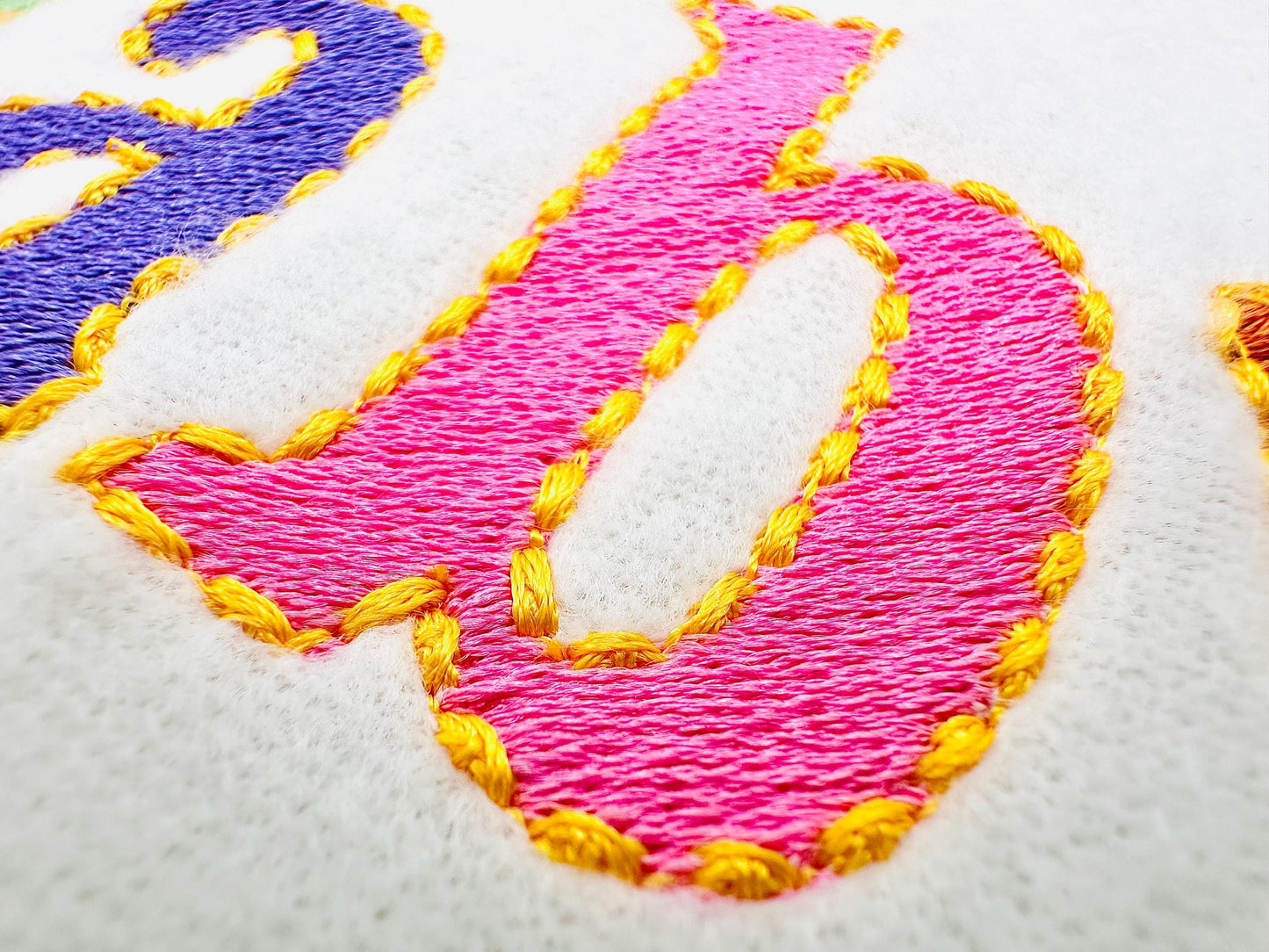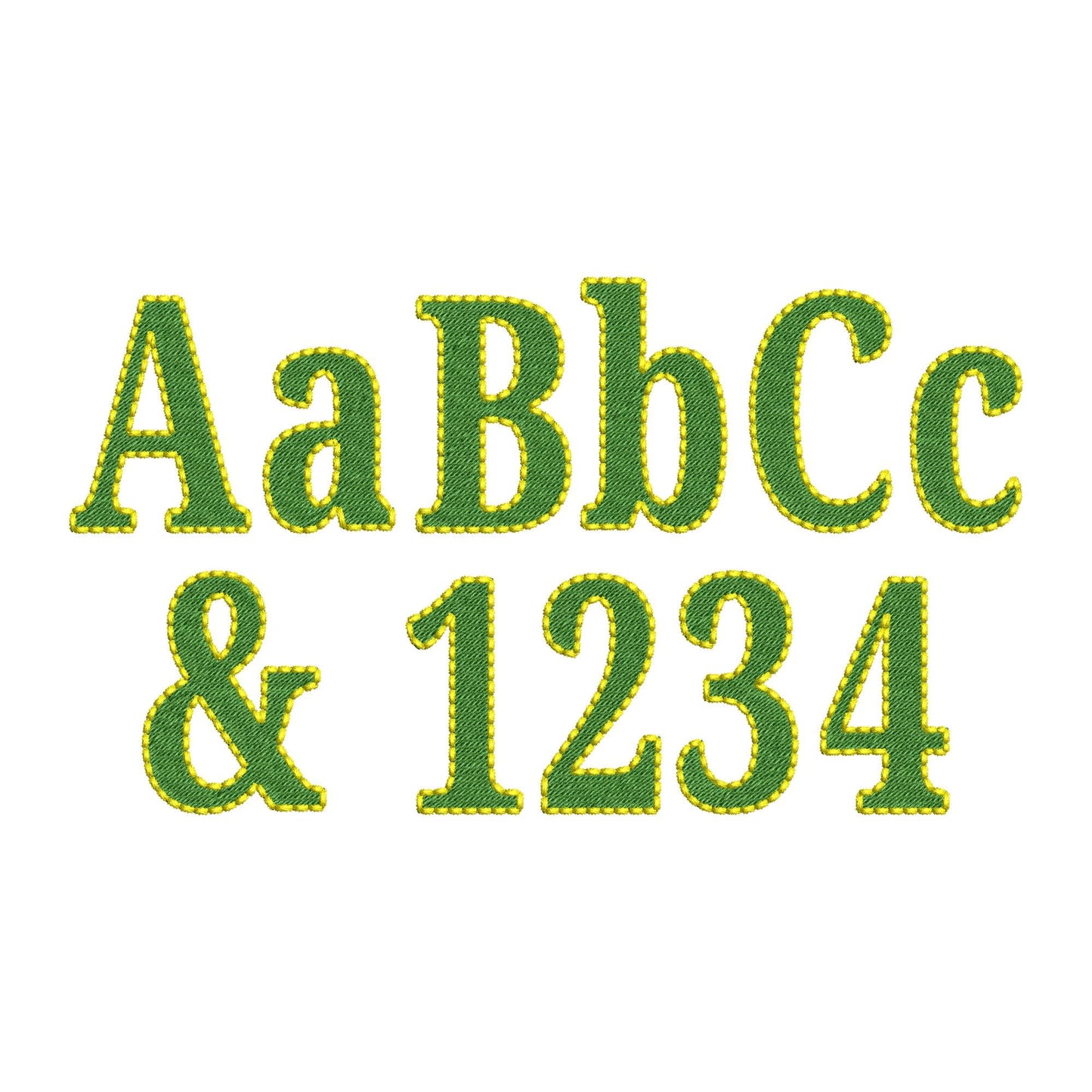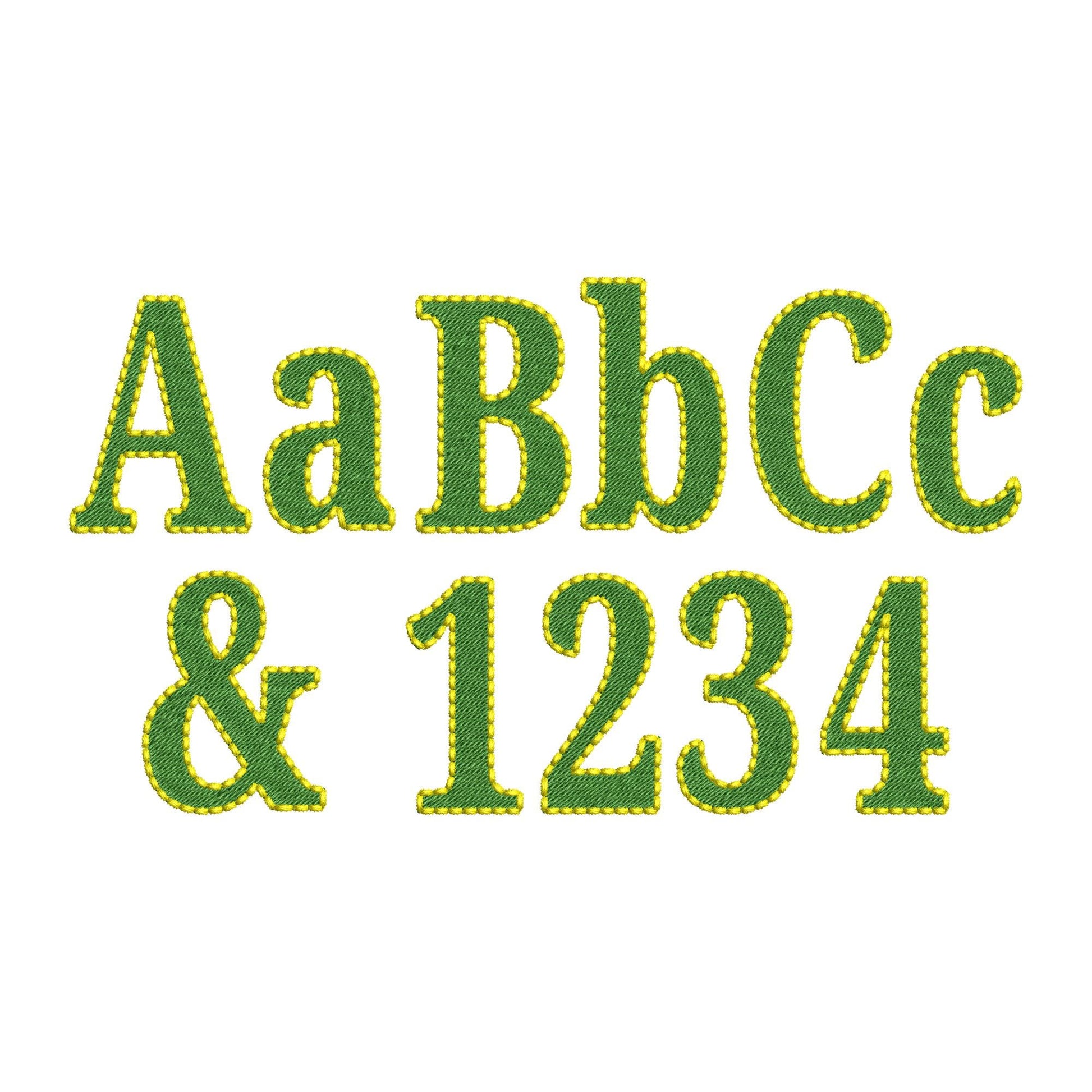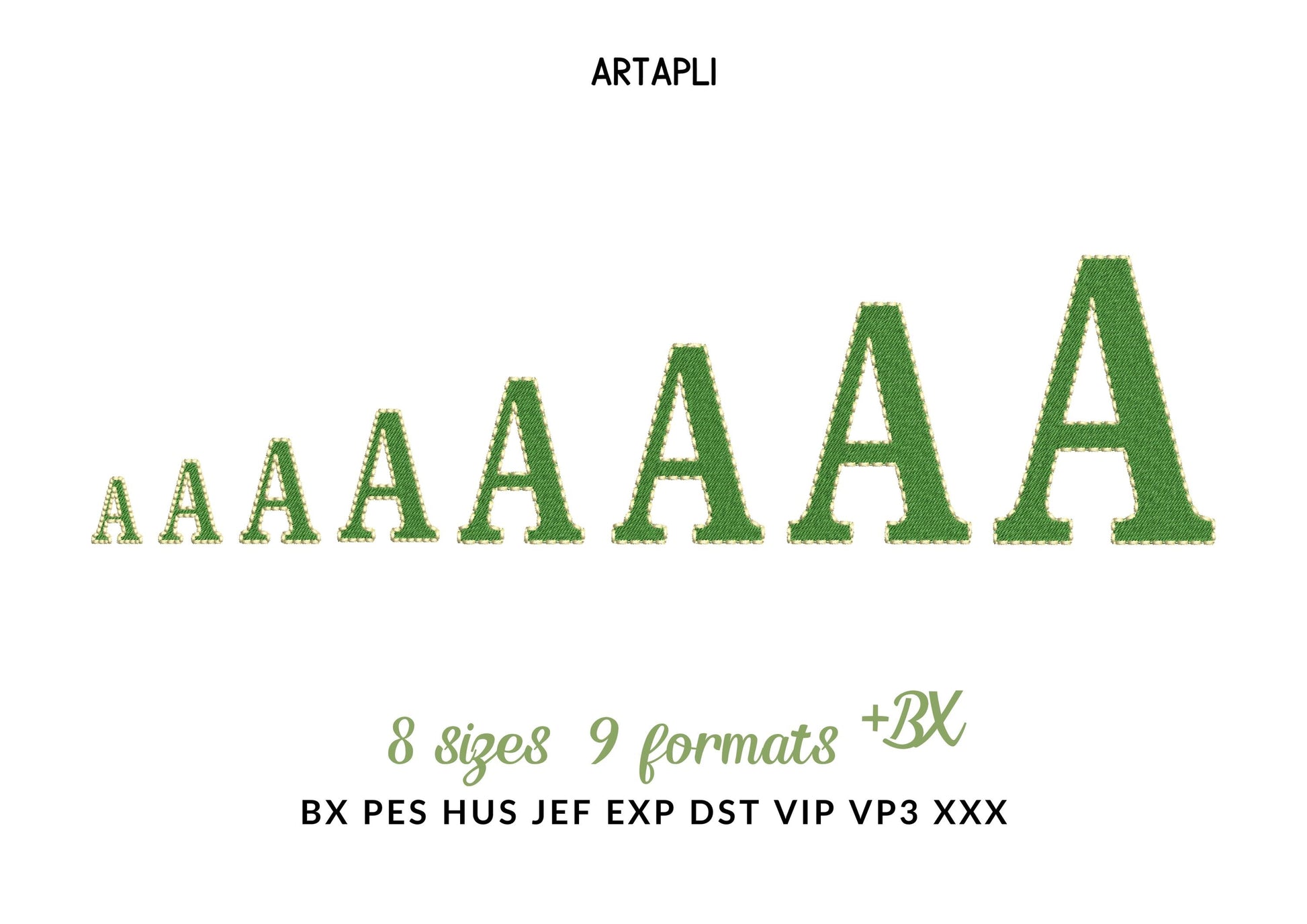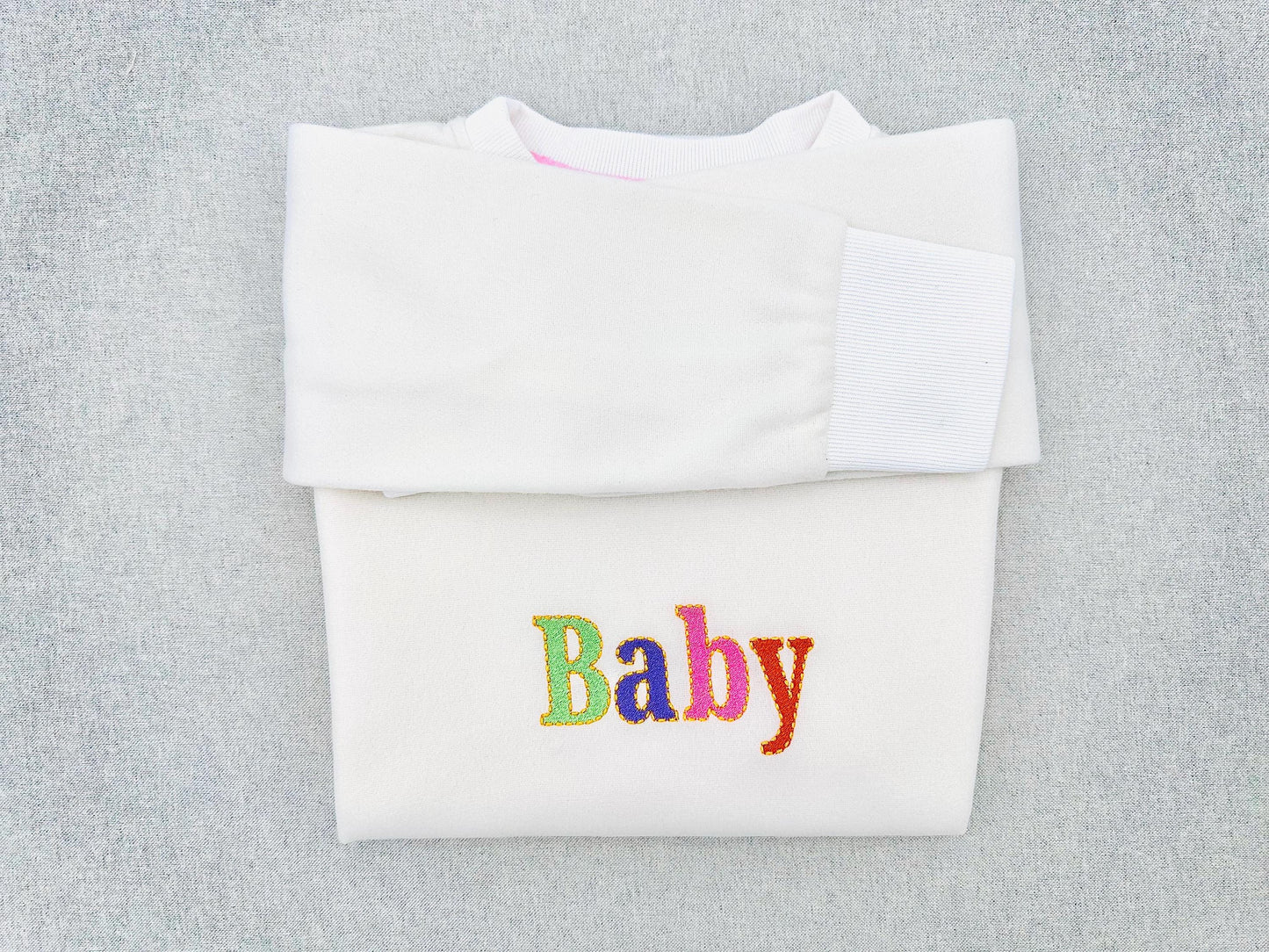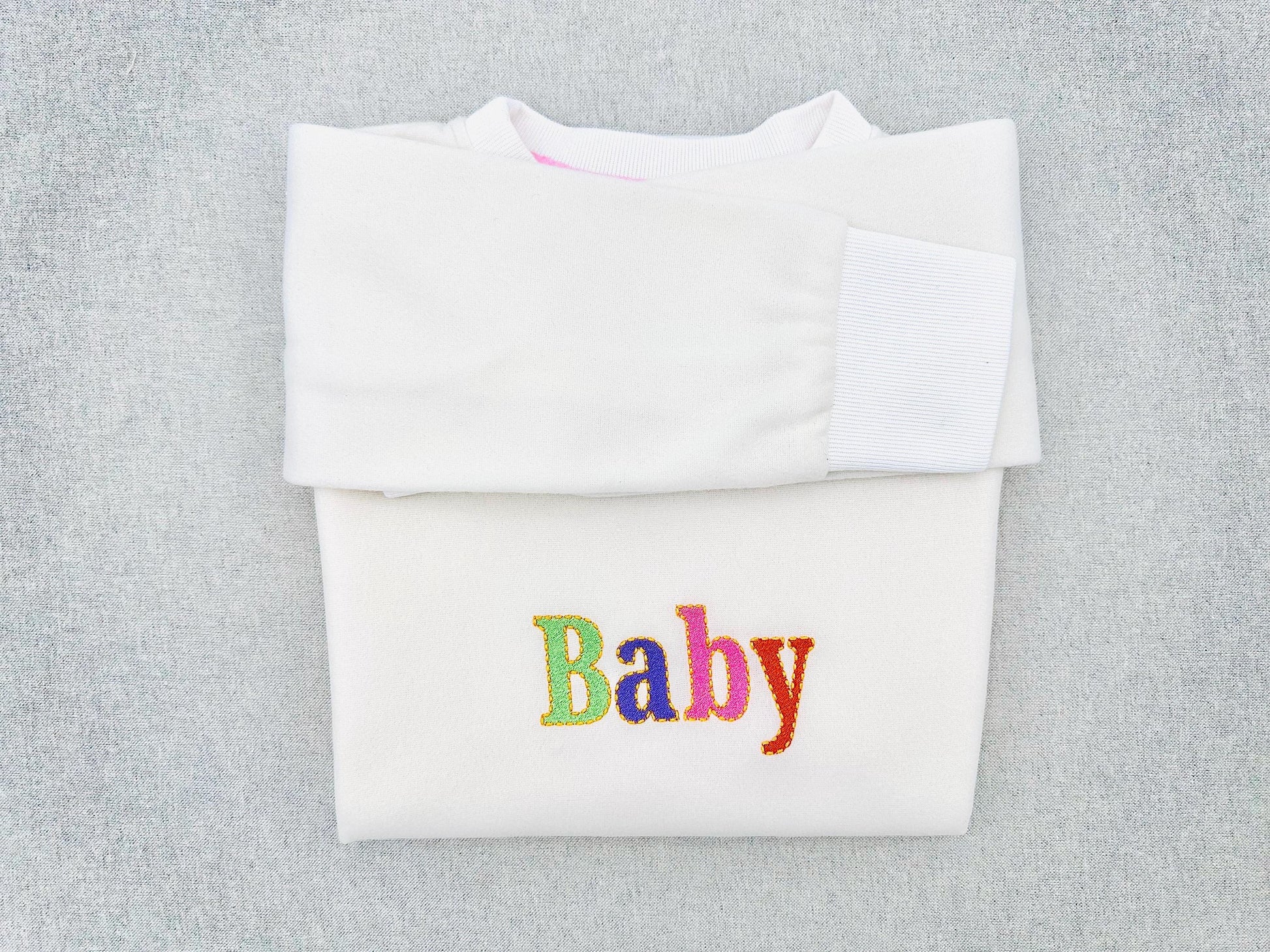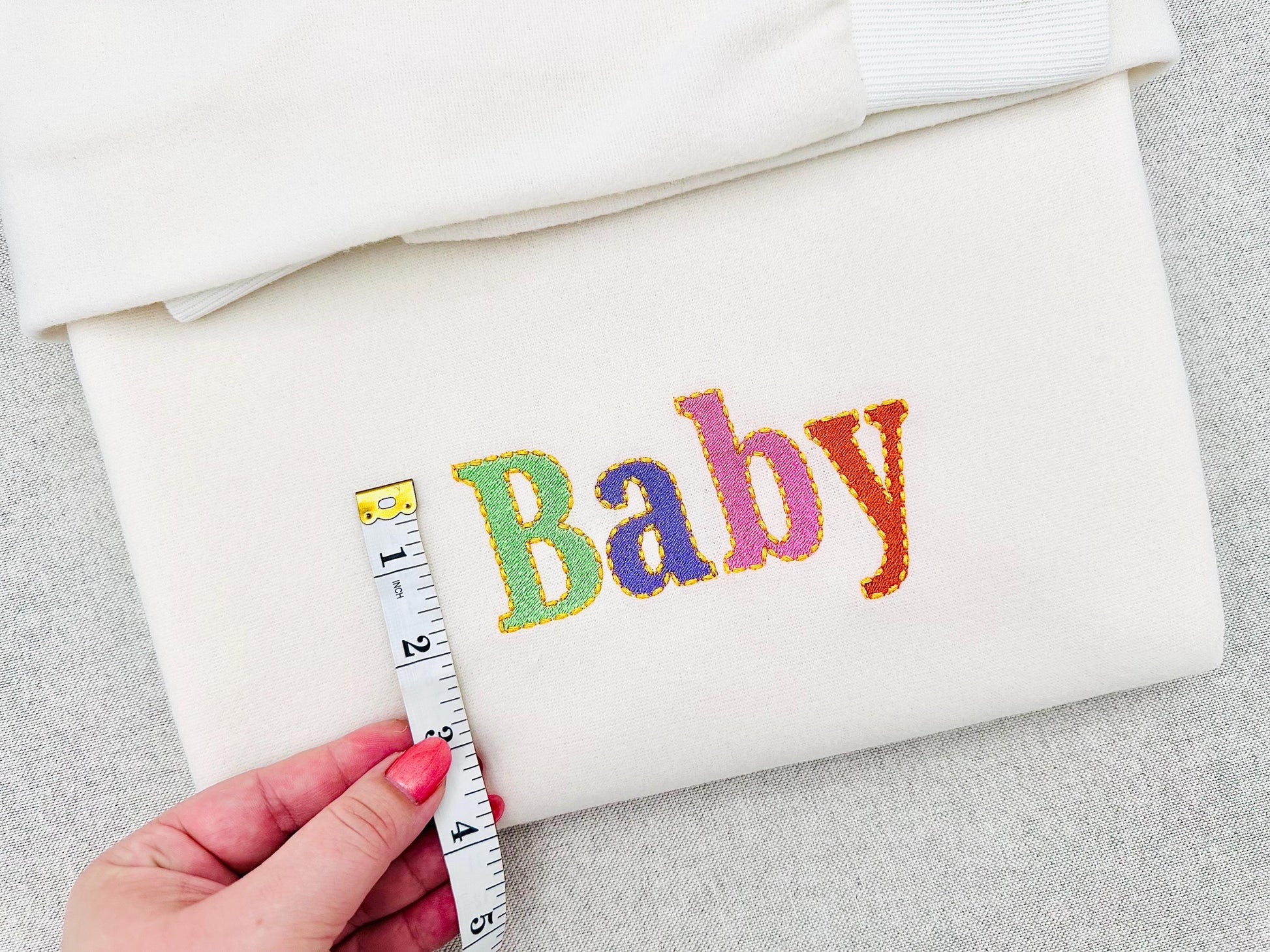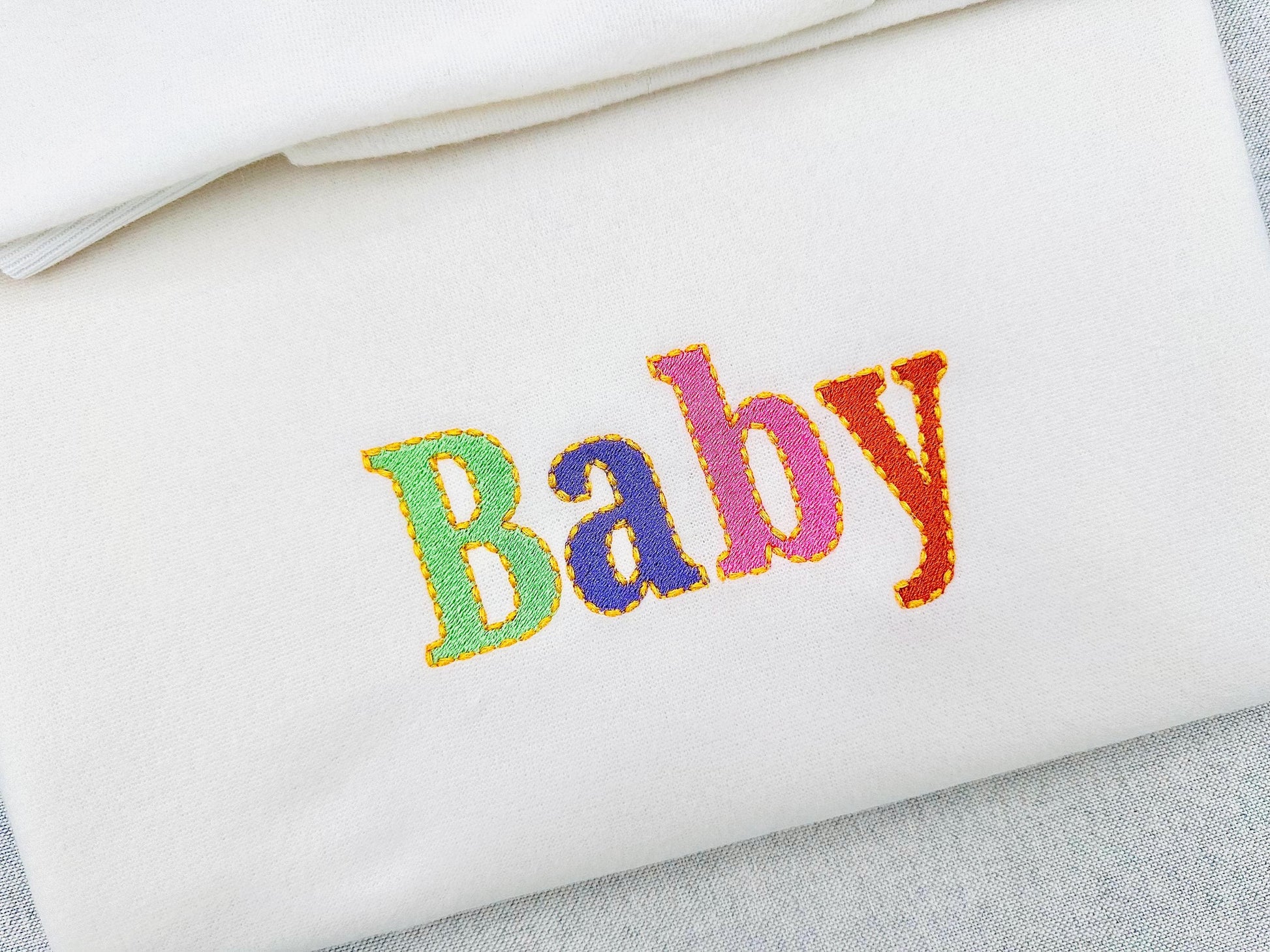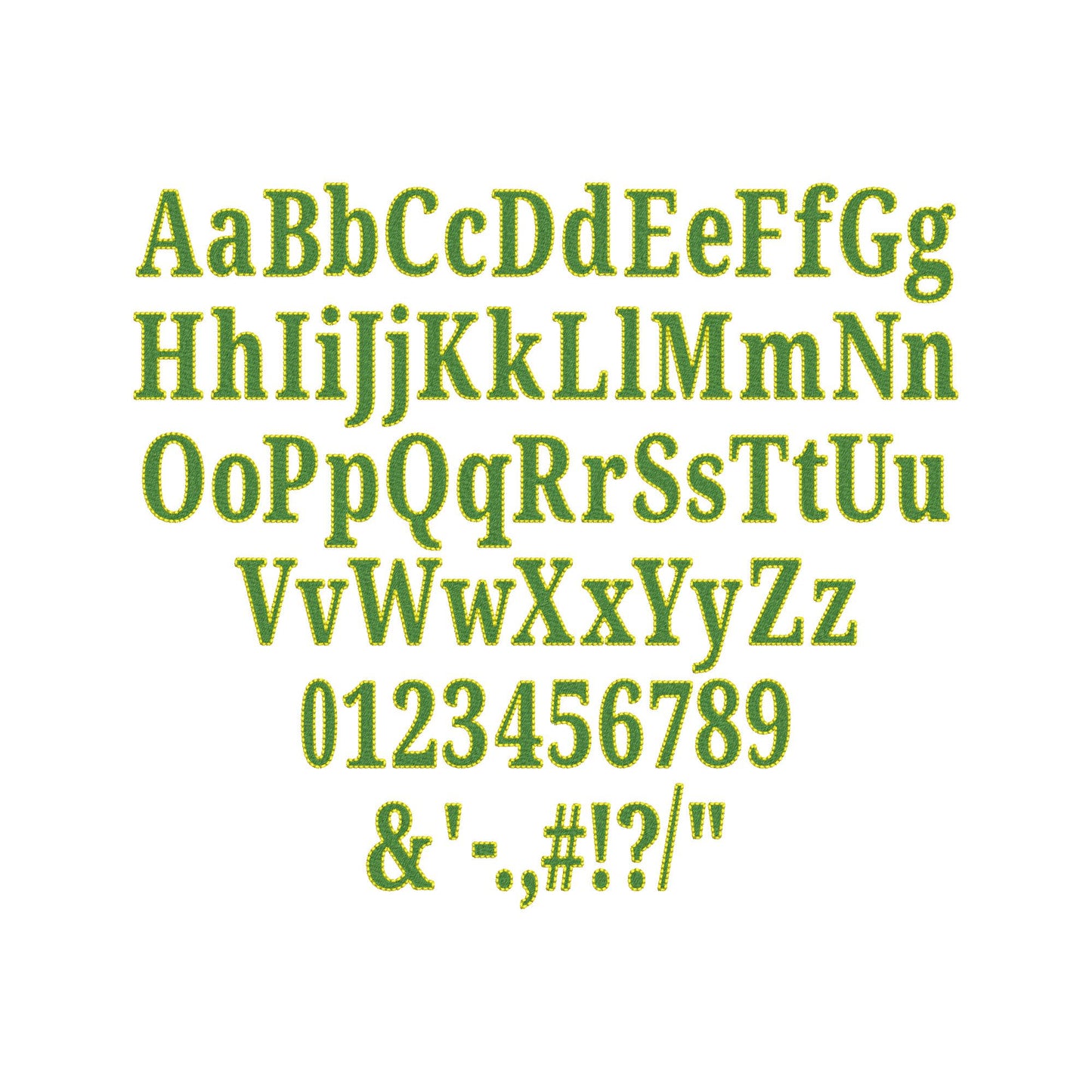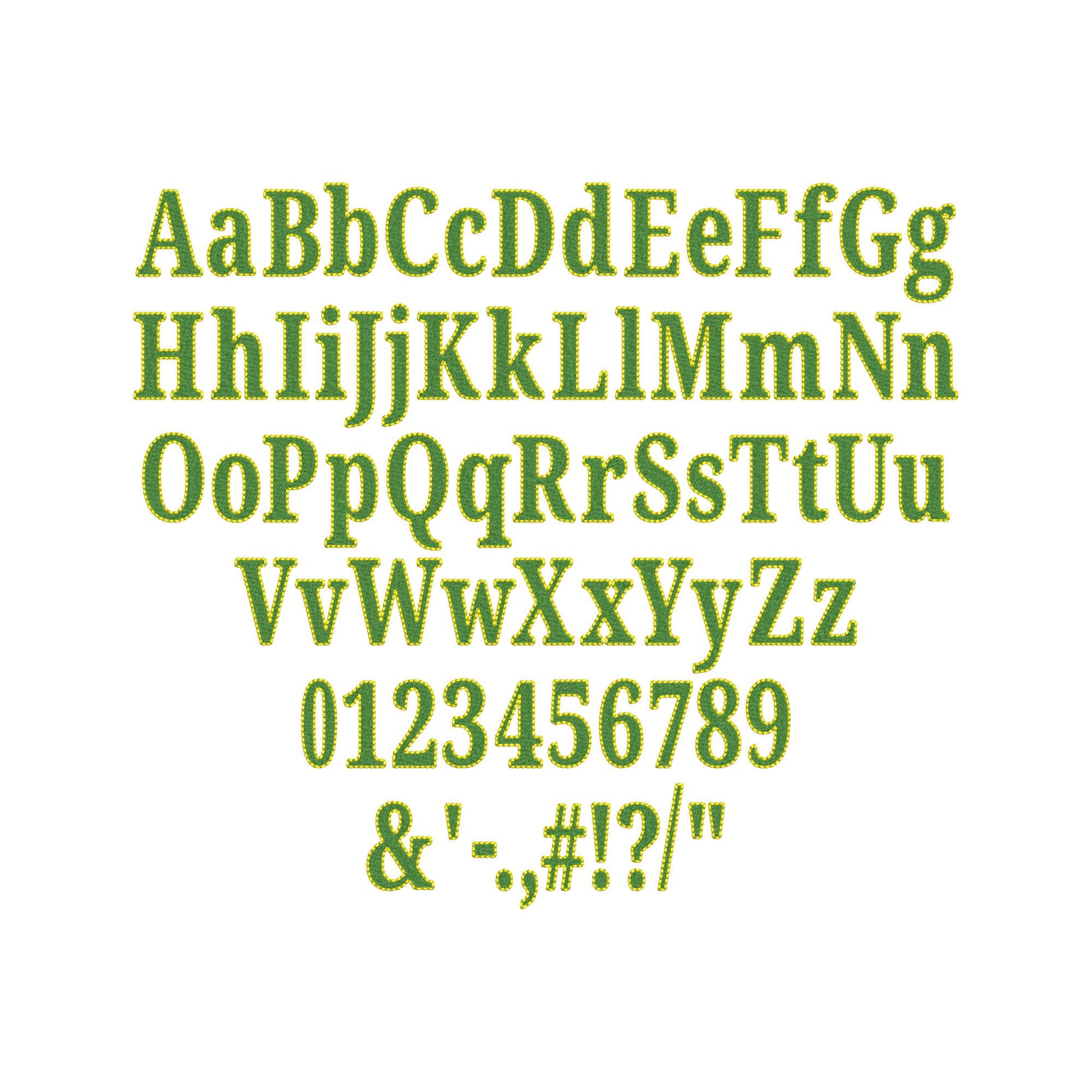
Fill stitch Font Nolan
Or click to open the linkA serif font in fill stitch with a hand-stitch outline. Elegant for names, monograms and initials on towels, pillows, shirts and gifts.
The letters come in eight sizes: 0.9, 1.2, 1.5, 1.9, 2.3, 2.8, 3.4 and 4.1 inches. Includes uppercase and lowercase letters, numbers 0-9 and punctuation.
- Nolan fill stitch font: uppercase and lowercase letters, numbers 0-9 and punctuation